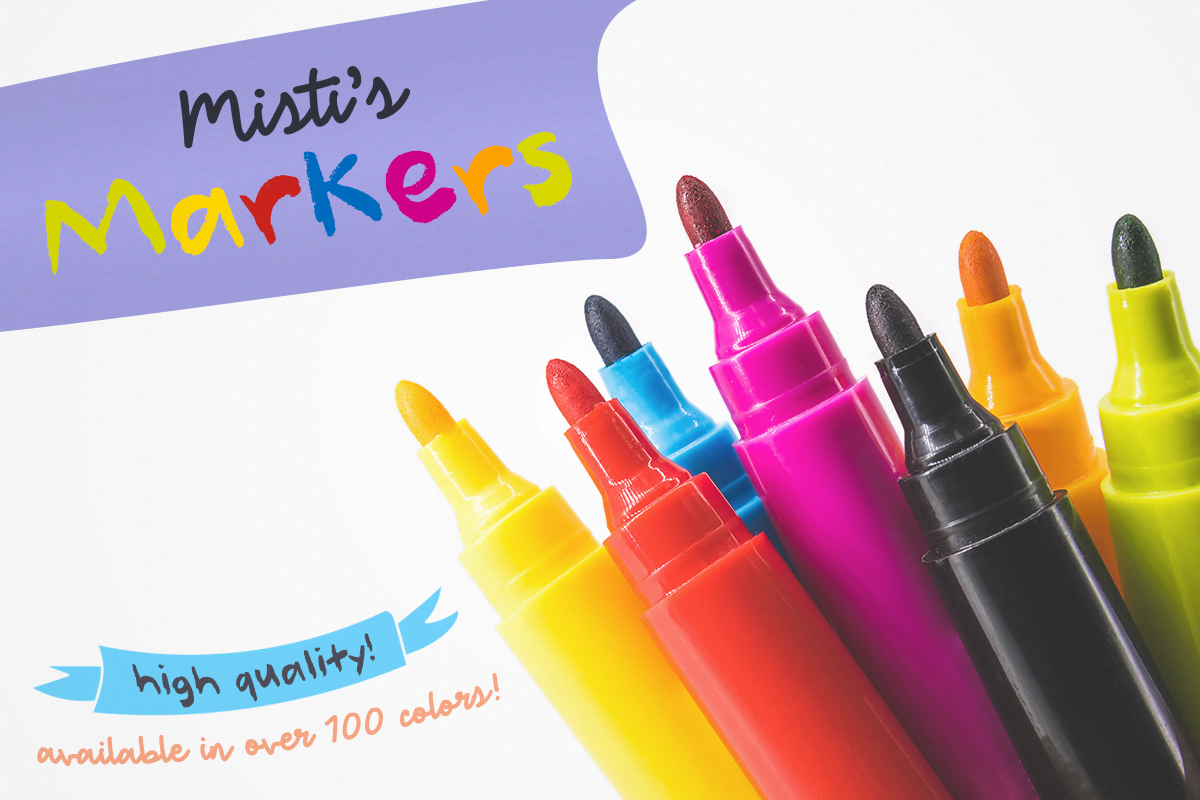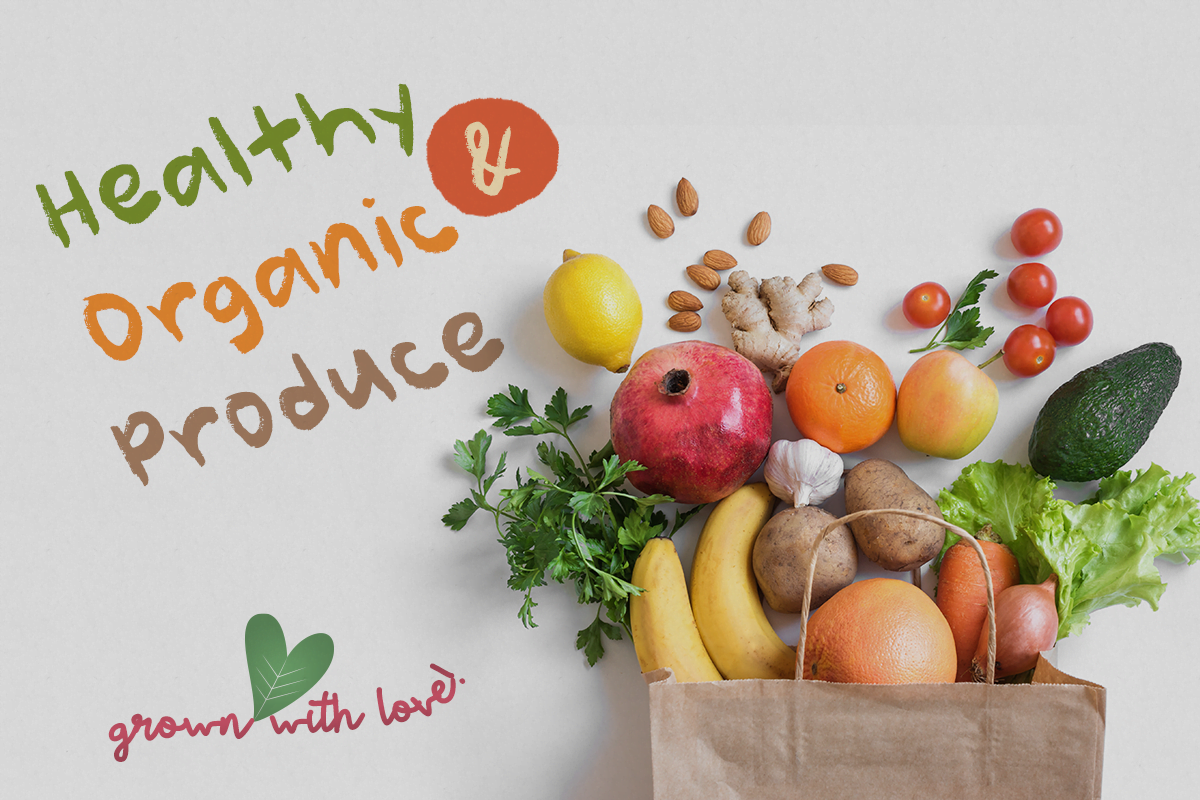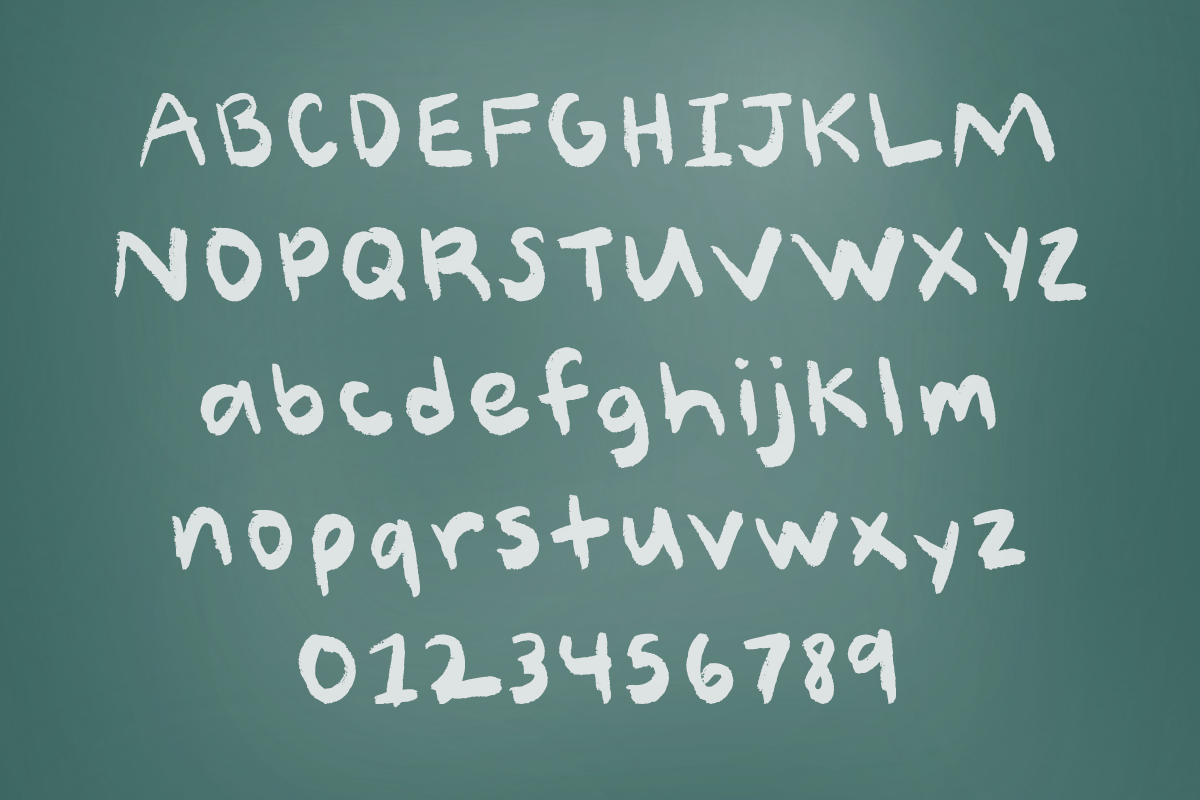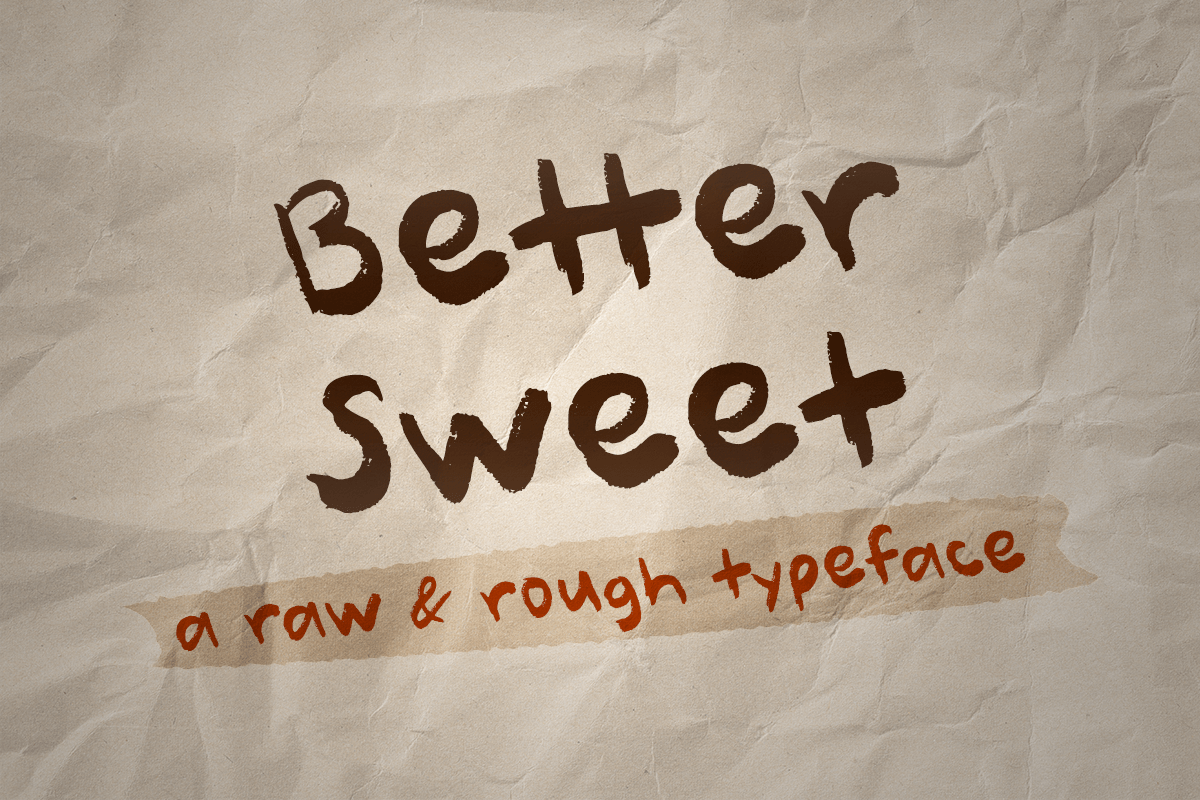
Better Sweet
Better Sweet feels equally charming and elegant. This handwritten font will appeal to a wide range of crafty ideas, from letterheads and titles to stationery.